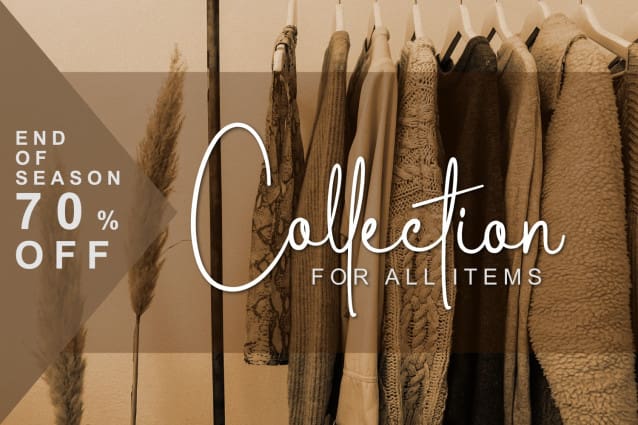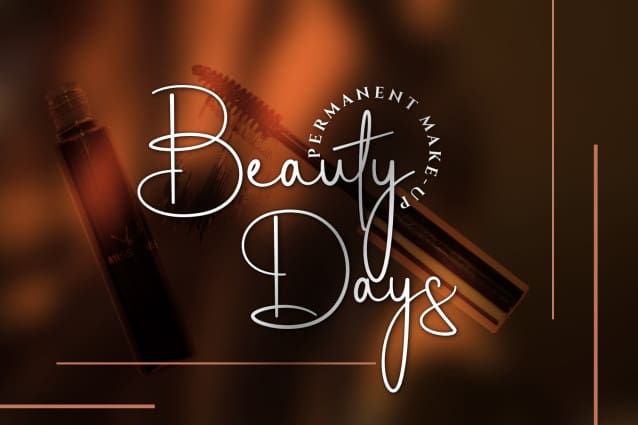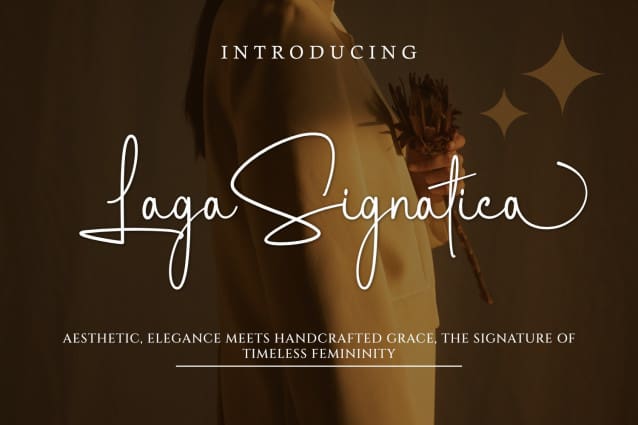
Laga Signatica Font
Laga Signatica Font is a luxurious handwritten script font that exudes elegance and femininity. Designed with smooth, flowing strokes and a modern touch, it captures the essence of timeless beauty and sophistication. Perfect for signature logos, wedding invitations, branding, and other creative projects, Laga Signatica adds a personal and graceful charm to your designs. Let your words stand out with this beautifully crafted font that feels both delicate and powerful.